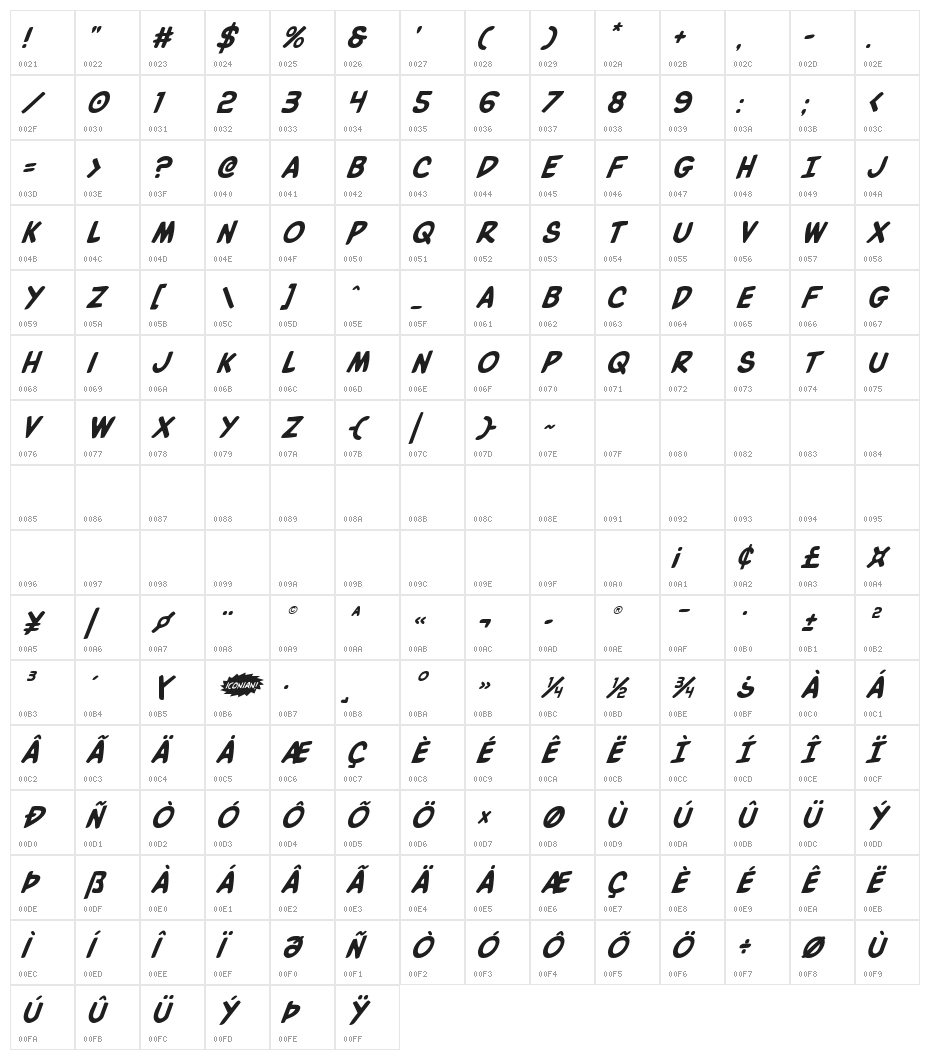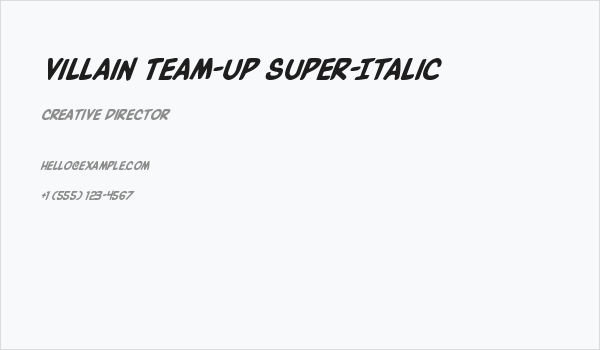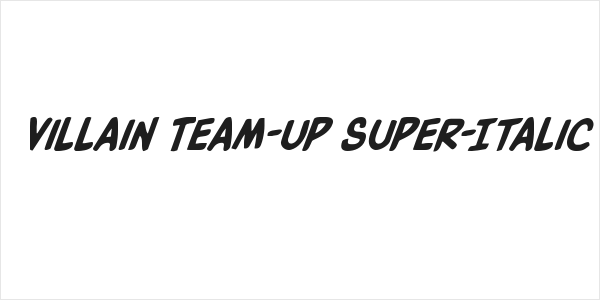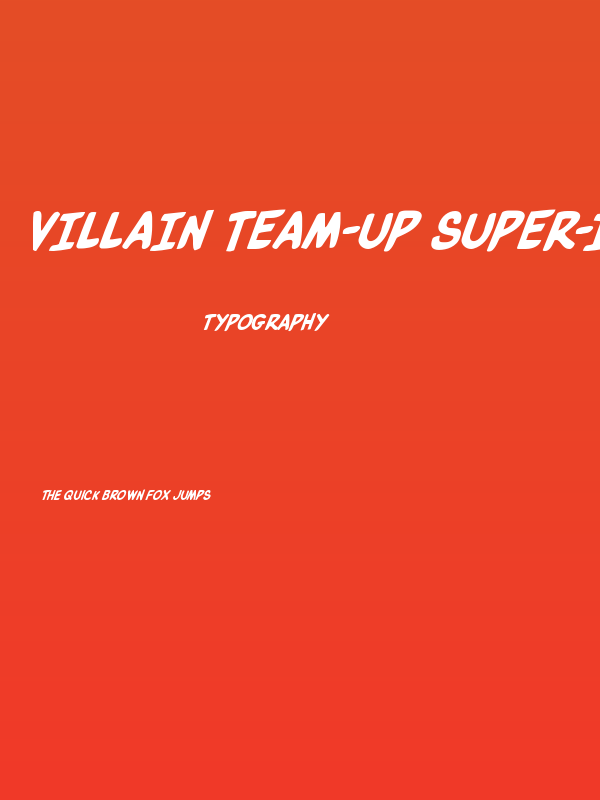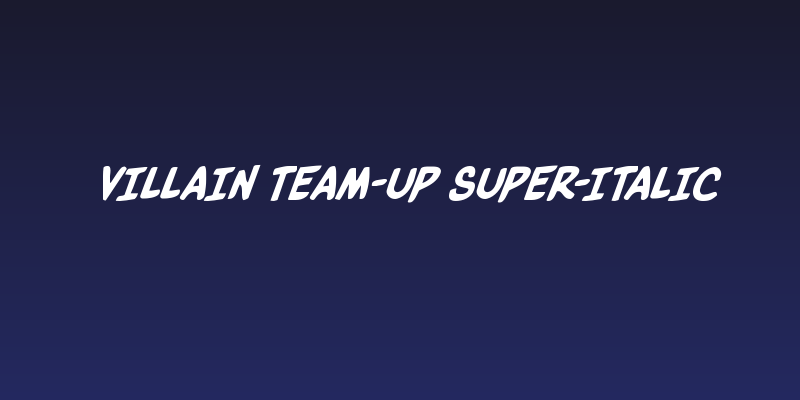
Villain Team-Up Super-Italic Font
Villain Team-Up Super-Italic Description
This font features a bold and dynamic style with a strong italic slant, giving it a sense of motion and energy. The characters are thick and robust, with a slightly condensed width that enhances their bold appearance. The strokes are smooth and rounded, providing a modern and sleek look. The uppercase and lowercase letters maintain a consistent style, while the numerals and special characters complement the overall design. This font's high contrast in stroke thickness adds to its dramatic and impactful presence.
Proposed ProjectsIdeal for comic book titles, action movie posters, and branding for energetic products.